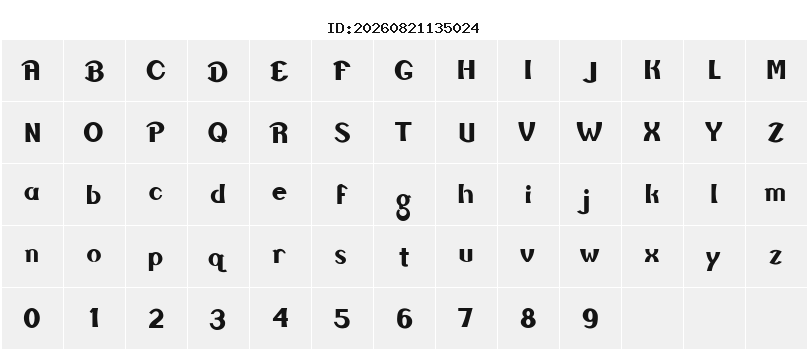
Seasalt.ttf is a modern, elegant sans-serif font designed for ultimate readability and visual harmony. Perfect for branding, headlines, web design, and print materials.